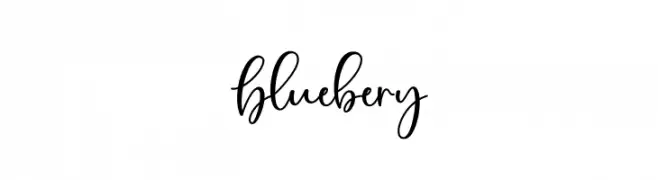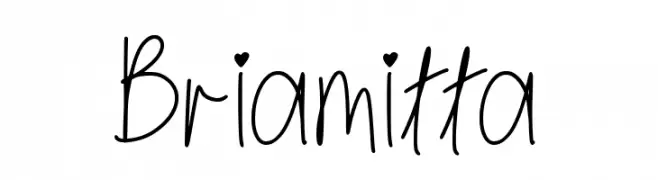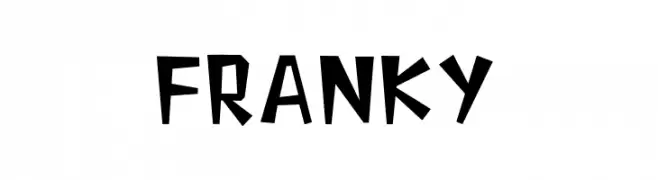
A jagged, dripping font ideal for spooky themes.
A playful, handwritten font with tall, narrow letters and a whimsical style.
A spooky, decorative font with jagged, dripping edges, perfect for Halloween themes.
A bold, angular font with a geometric, stencil-like appearance.
A bold, playful, and hand-drawn font with dynamic, irregular characters.
A bold, playful font with striped, hand-drawn characters.
A playful, bold font with a hand-drawn, whimsical style.
A clean, minimalist font with thin, uniform strokes and a modern design.
A playful and elegant script font with flowing, cursive letterforms.
A charming script font with flowing, connected letters and elegant flourishes.